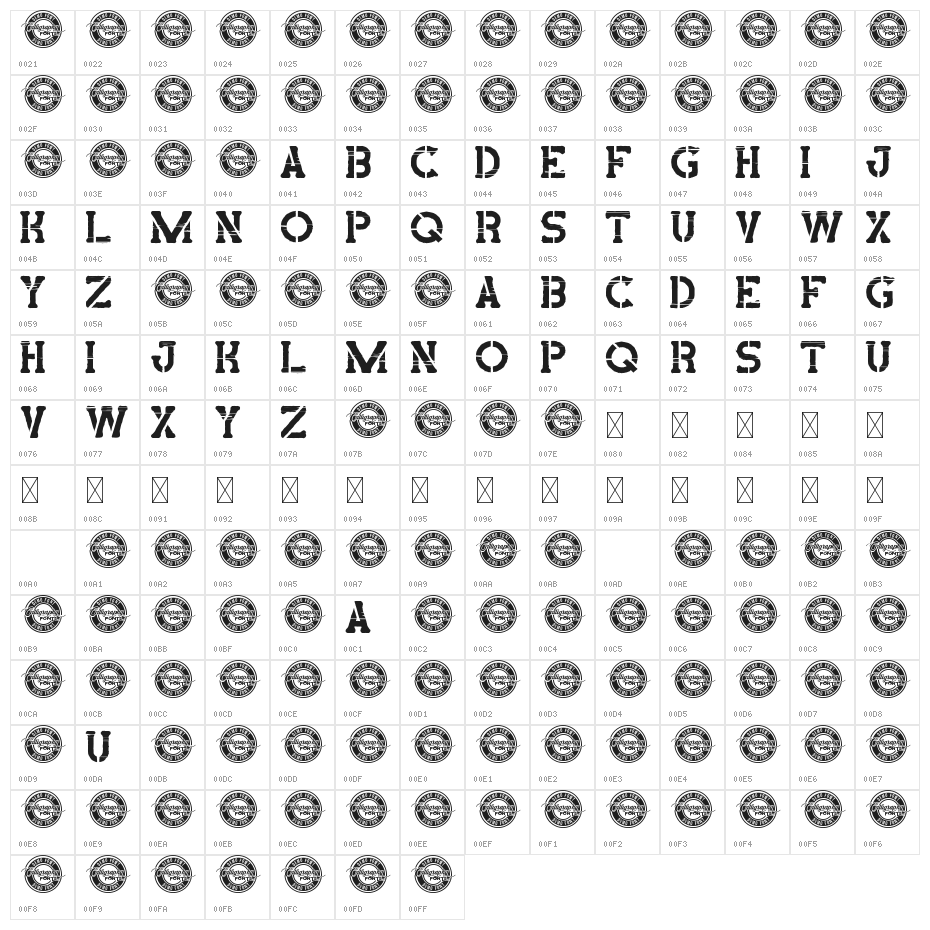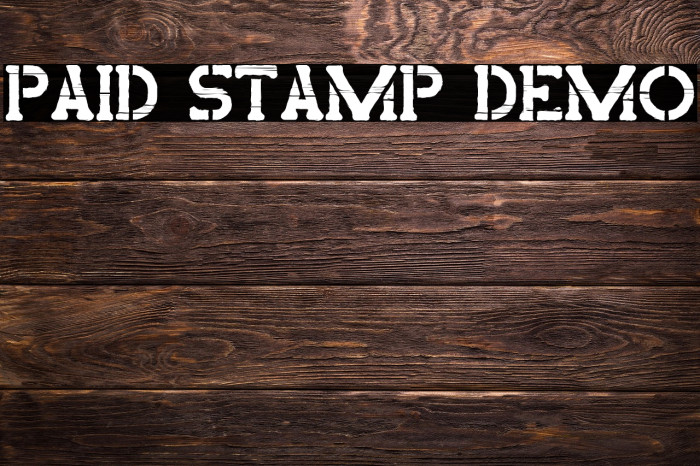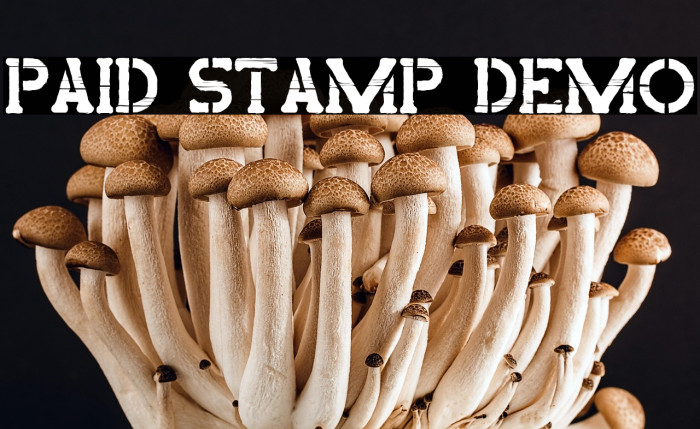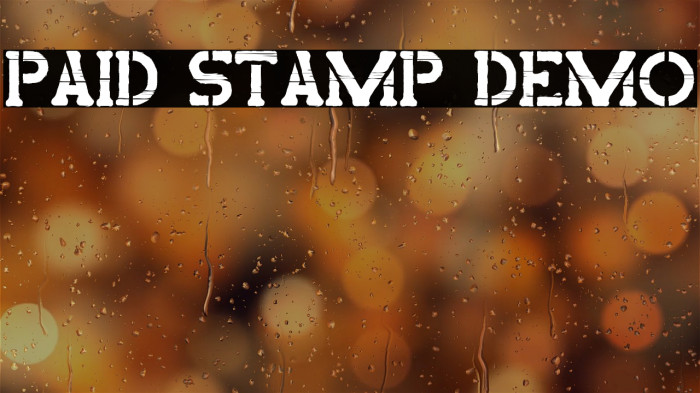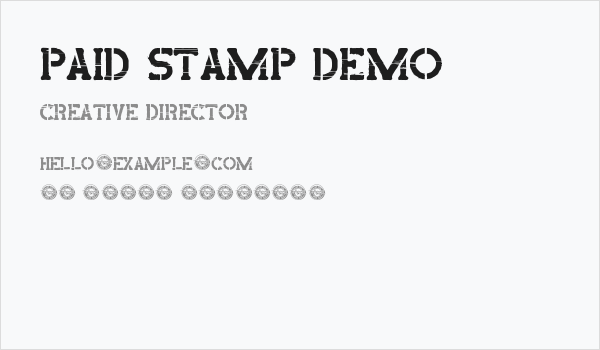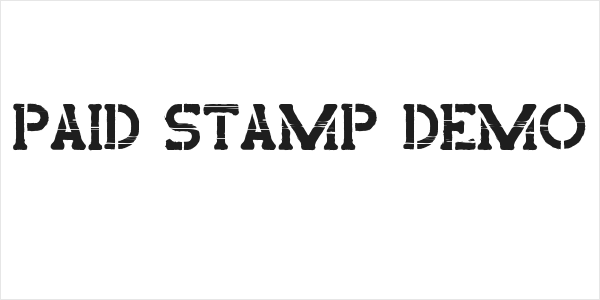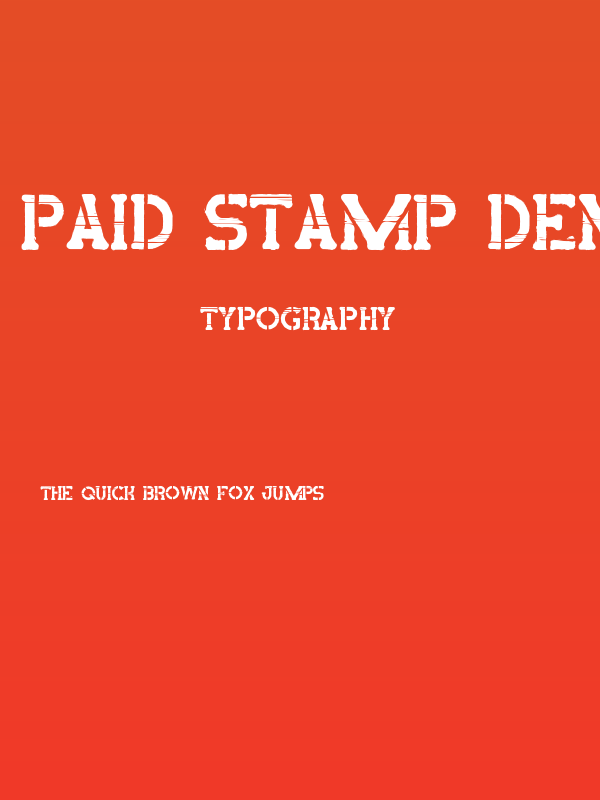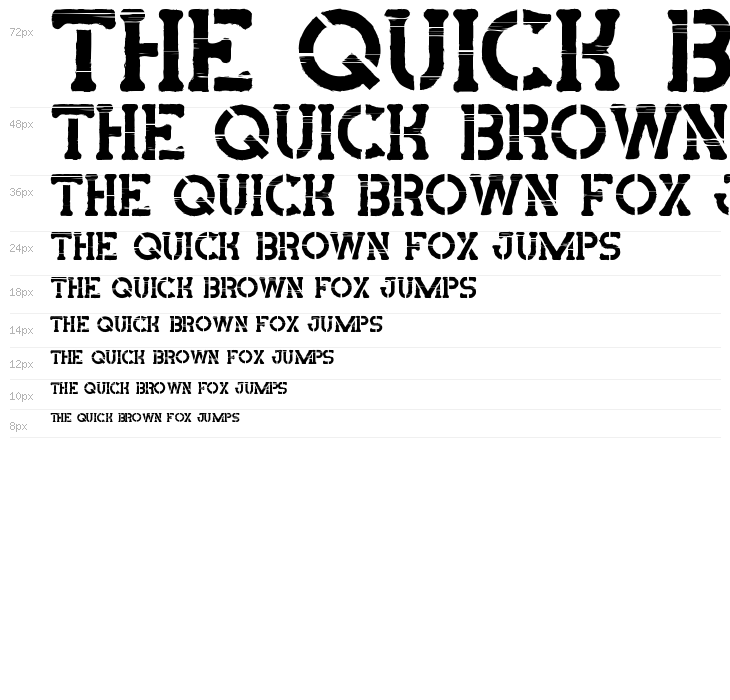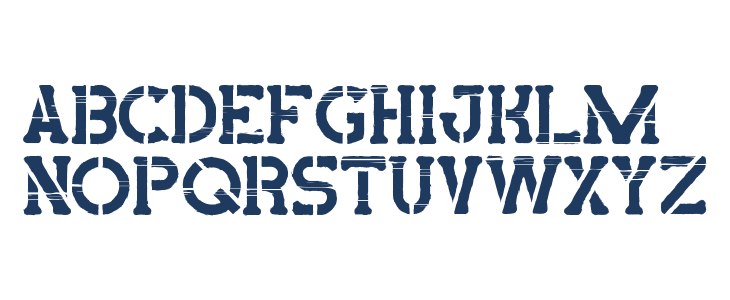
Paid Stamp Demo Font
Paid Stamp Demo Description
This font features a bold and distressed style, reminiscent of vintage rubber stamps. The letters are uppercase and exhibit a rough, textured appearance, giving them a worn and rugged look. The design includes irregular edges and a slightly uneven baseline, enhancing its authentic, handcrafted feel. This font is ideal for projects that require a retro or industrial aesthetic, such as posters, packaging, or branding that aims to convey a sense of authenticity and nostalgia.
| Proposed Projects | Ideal for vintage-themed posters, industrial branding, packaging, and logos that require a rugged, authentic look. |